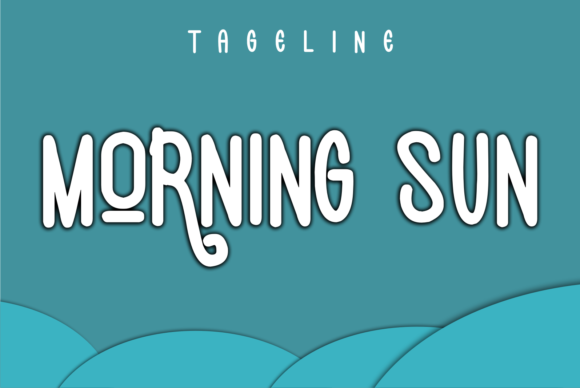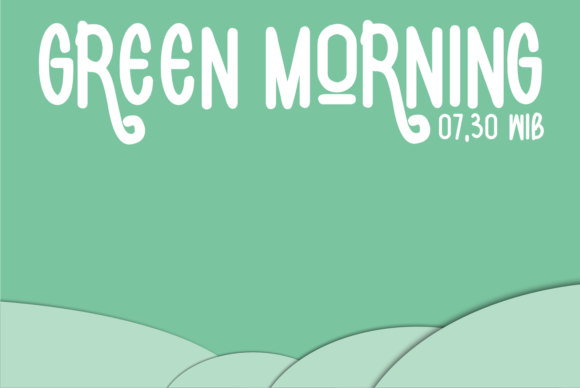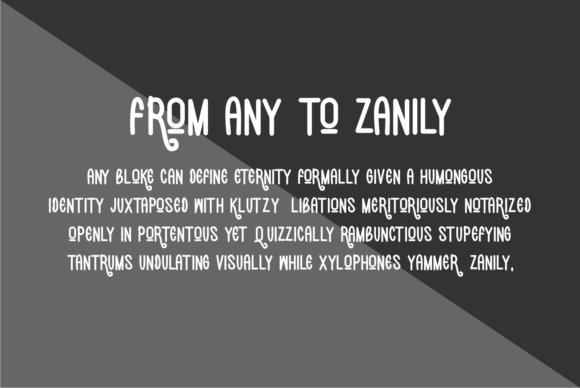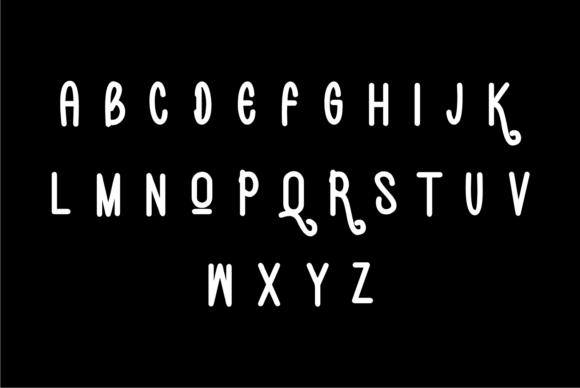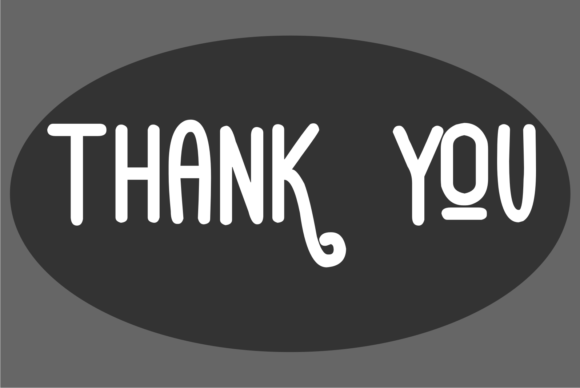
Introduction to Orcicuas Font
You’re in the middle of a creative project, and you need a font that’s going to make your design stand out from the crowd. You’ve been browsing through font libraries, searching for that perfect combination of style and sophistication. And then, you stumble upon it – Orcicuas Font. This cool and trendy-looking display font is a game-changer for designers who want to add a touch of elegance to their work.
With its unique and modern design, Orcicuas Font is perfect for logos, badges, clothing, posters, and any other project that needs to make a statement. And the best part? It’s available for free download, making it an invaluable resource for designers who are looking for high-quality fonts without breaking the bank.
Key Features of Orcicuas Font
- High-quality design resource with a unique, creative style, ideal for various projects
Honest Review: Orcicuas Font
I recently had the chance to work with the Orcicuas Font for a creative project, and I was pleasantly surprised by its high quality and versatility. The font is a free download, which is a definite bonus for designers on a budget.
One of the things that really stood out to me was the font’s ability to work well in a variety of contexts. Whether you’re looking to create a bold, eye-catching headline or a more subtle, elegant title, Orcicuas has got you covered.
Here are a few things that I think work particularly well with the Orcicuas Font:
- ✨ High-quality design: The font has a crisp, clean look that’s perfect for high-end creative projects.
- ✨ Versatile style: As mentioned earlier, Orcicuas can be used for a wide range of design applications.
- ✨ Transparent background: This feature makes it easy to use the font in conjunction with transparent backgrounds or images.
That being said, there are a few limitations to be aware of:
- ⚠️ Limited character set: While the font has a good selection of characters, it’s not as comprehensive as some other fonts on the market.
- ⚠️ Not suitable for small text: Due to its bold, chunky style, Orcicuas may not be the best choice for small or body text.
Overall, I was really impressed with the Orcicuas Font, and I think it’s a great addition to any designer’s toolkit. With its high quality, versatility, and transparent background, it’s a fantastic resource for creative projects of all kinds.
Orcicuas Font is a free design resource ideal for creative projects that require a high-quality font. Its unique style makes it perfect for various applications, from graphic design to digital art.
Tips for Getting the Most Out of Orcicuas Font
Use Orcicuas Font with a transparent background to create a unique and eye-catching design.
Experiment with different font sizes and styles to achieve the desired effect.
Orcicuas Font is ideal for: